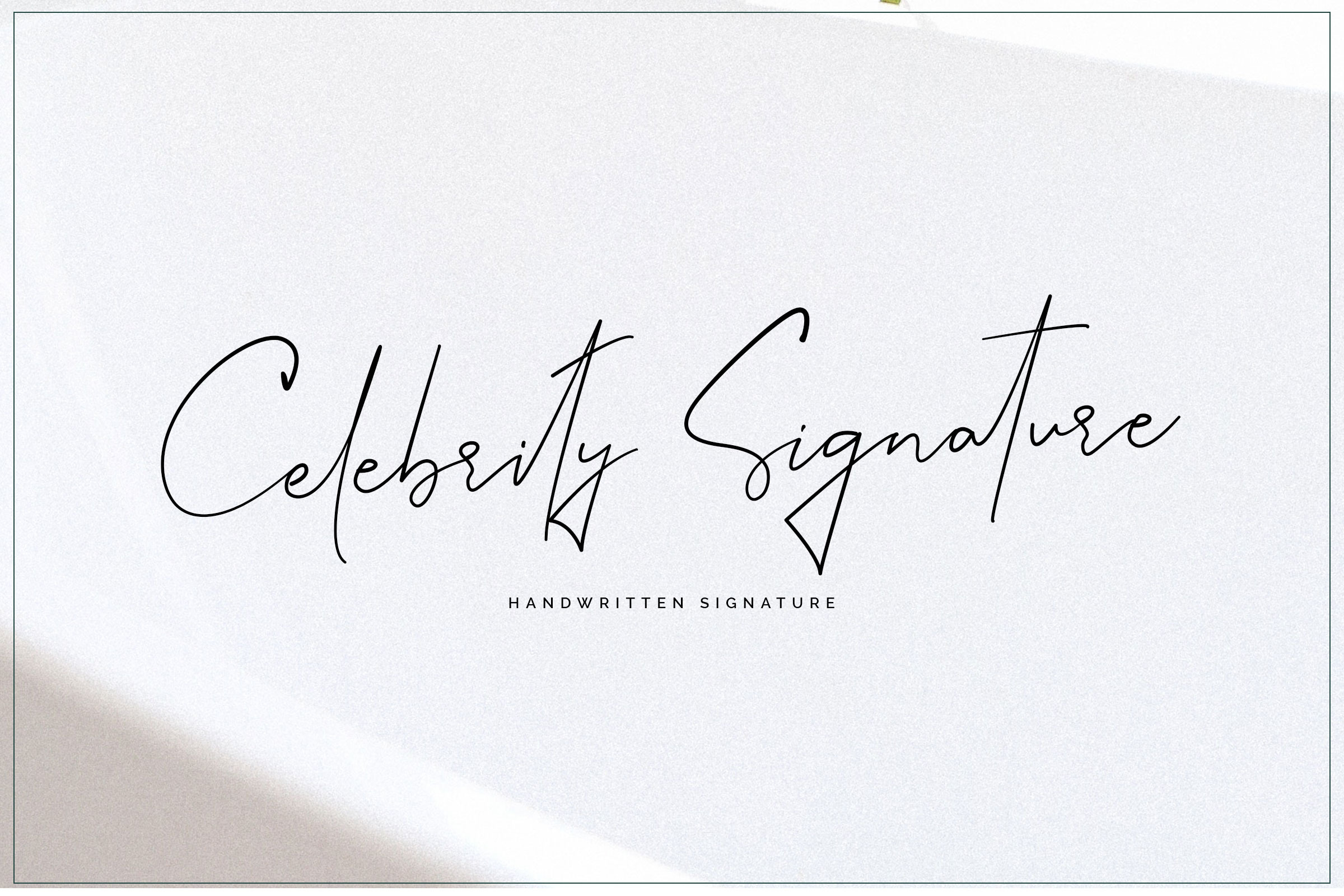
Celebrity Signature Font
Presenting the new "Celebrity Signature" handwriting script font.
"Celebrity Signature" contains 37 handwritten connecting ligatures and a full set of lowercase alternates to look your writing more natural. When you will be use Opentype features this font will look as natural handwriting also you can change the lowercase letters.
This font contains alternative glyph
37 Natural Ligatures
dd, ph, ell, al, alt, ult, elt, kk, ll, oot, olt, st, of, ff, ft, pp, Sh, Rh, Rt, ot, ght, et, el, at, th, nt, ut, tt, it, sh, ol, ent, ent, all, ht, St, ul, or.